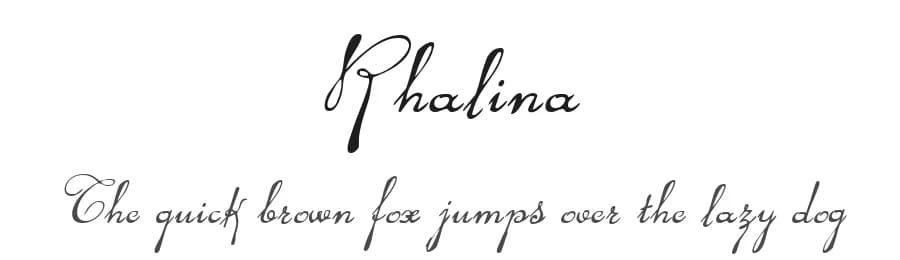
About Rhalina Font
Rhalina is a script & handwritten font designed by Iconian Fonts. It includes 221 glyphs, a regular weight, TTF (TrueType) format, and 216 languages. Rhalina is free to download; check the license details on this page before commercial use. Script & handwritten fonts like Rhalina work best for wedding invitations, greeting cards, signatures, and elegant branding.
Rhalina Font is a script font that shines as a display or heading face. Pair it with a clean sans-serif or serif font for body text β the contrast creates a clear hierarchy while the two styles stay balanced and easy to read.
Rhalina Font
Rhalina Font is a script handwritten typeface by Iconian Fonts, ideal for logos, invitations, branding, and creative projects.